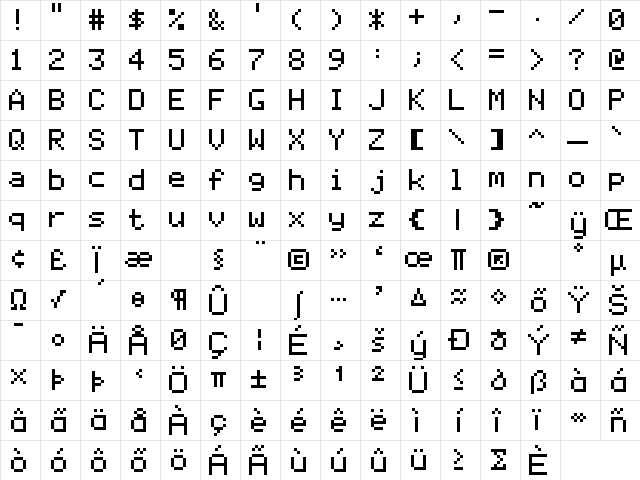
AppleII remix Regular Free Font
AppleII remix Regular
Design Context for AppleII remix
AppleII remix is a composed and adaptable typeface that performs quietly and consistently across a wide range of design contexts.